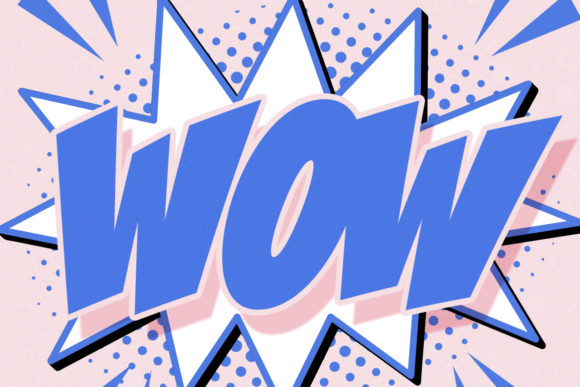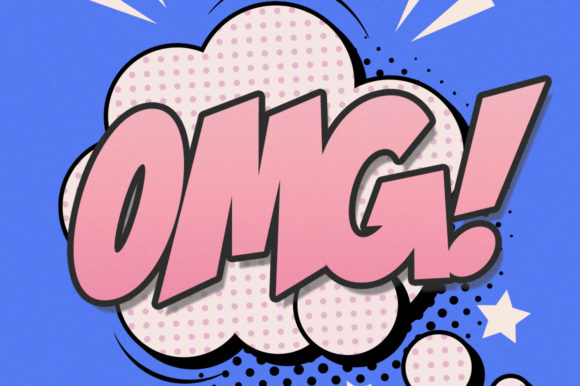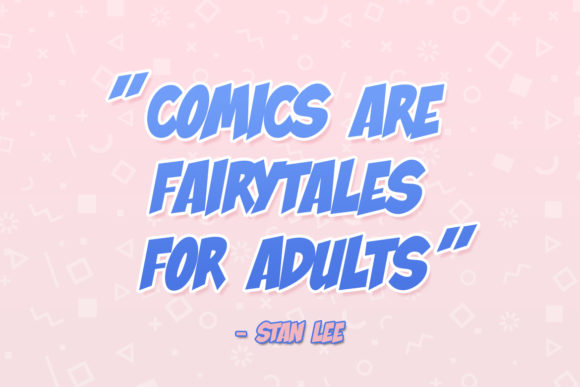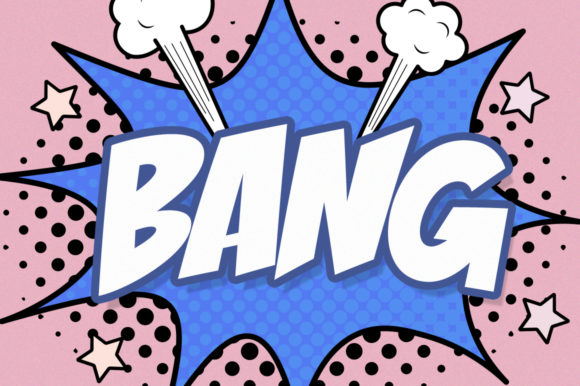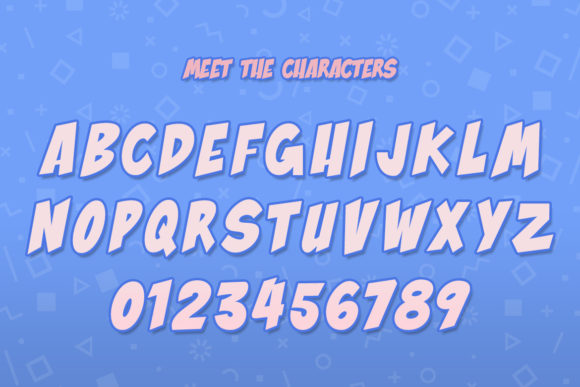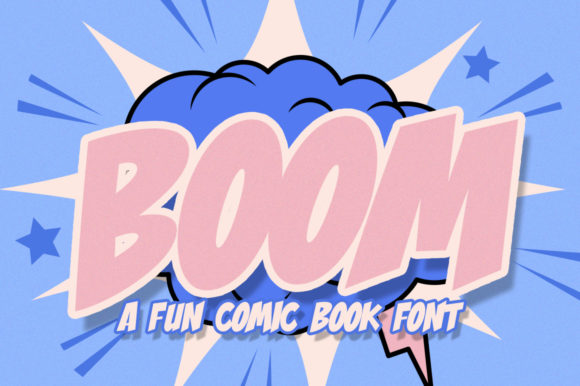
The Power of Boom Comic Font: Elevate Your Designs with a Fancy Display Font
Have you ever been in the middle of a design project, and suddenly, you just can’t seem to find the right font? I recall a particularly frustrating experience while working on a poster design for a comic book store. The client wanted something that would grab attention, but everything I tried seemed to fall flat. That’s when I stumbled upon the Boom Comic font, and let me tell you, it was like a superhero for my design β kapow! π¦ΈββοΈ
An Honest Review of Boom Comic Font
I’m excited to share my thoughts on the Boom Comic font, and here’s what I think:
- β¨ Fancy Display Font: Boom Comic is perfect for adding a touch of drama and flair to your designs.
- β Highly Versatile: Use it for posters, book covers, flyers, and much more!
- π Attention-Grabbing: This font is sure to make your designs stand out from the crowd.
However, no font is perfect, and here are a few things to keep in mind:
- π€ Legibility at Small Sizes: While Boom Comic looks amazing at larger sizes, it can be a bit tricky to read at smaller sizes.
- β οΈ Limited Use in Body Text: Due to its decorative nature, Boom Comic is best used as a display font, rather than for body text.
The Backstory of Boom Comic Font
Boom Comic was designed with the intention of capturing the playful, energetic spirit of comic books. Its creator, a passionate typographer, drew inspiration from classic comic book fonts, while aiming to create something fresh and modern. The result is a font that’s both nostalgic and attention-grabbing.
| What type of designs is Boom Comic best suited for? | Boom Comic is perfect for designs that require a bold, attention-grabbing font, such as posters, book covers, flyers, and comic book graphics. |
| Can I use Boom Comic for body text? | While Boom Comic can be used for short paragraphs, it’s primarily designed as a display font and may not be the best choice for lengthy body text. |